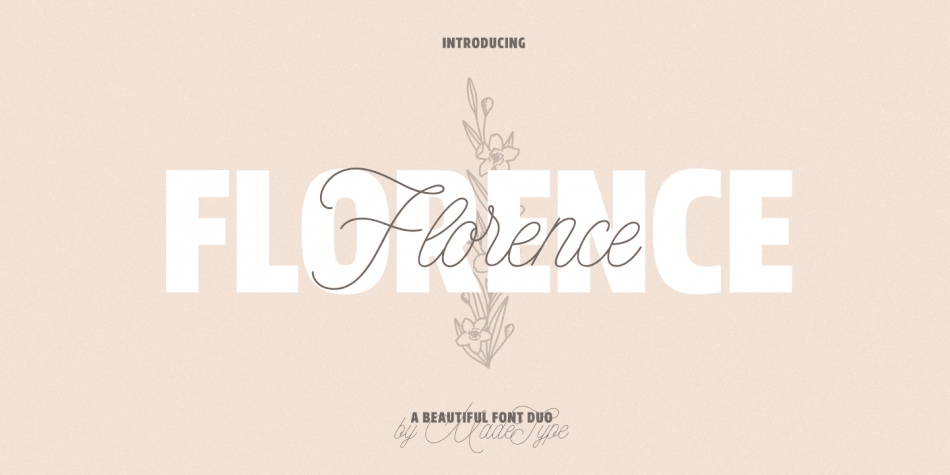
MADE Florence Font
MADE Florence Font is perfect for Italian Renaissance-inspired branding, Tuscan tourism marketing, luxury Italian fashion campaigns, Florentine art gallery signage, high-end Italian restaurant communications, cultural heritage displays, sophisticated Italian lifestyle promotions, and elegant Renaissance-themed events.
What makes MADE Florence Font exciting is its Renaissance elegance that embodies the artistic magnificence and cultural sophistication of Florence with Italian heritage authenticity and Renaissance grandeur. The font features refined letterforms with Florentine proportions and artistic character that evoke Michelangelo sculptures, Medici palaces, and the timeless beauty of Renaissance art and Italian cultural achievement. Its distinctive Renaissance styling and artistic appeal communicate sophistication, culture, and artistic excellence, making every message feel crafted by Renaissance masters and touched by the magnificent beauty of Florentine artistry and Italian cultural refinement.
The MADE Florence Font family includes regular weight with uppercase and lowercase letters, numerals, punctuation marks, and special characters. Premium versions often feature artistic alternates and Renaissance elements that enhance the sophisticated, cultural aesthetic perfect for Italian heritage and luxury applications.
This magnificent Renaissance typeface brings instant authenticity and cultural credibility to any Florence-inspired project. MADE Florence Font Free Download delivers exceptional results for Italian luxury brands and cultural organizations seeking to communicate Renaissance elegance, artistic heritage, and Florentine sophistication to art enthusiasts and Italian culture appreciators.
The artistic character of MADE Florence Font makes it particularly valuable for Italian luxury fashion houses, Tuscan tourism operators, and Renaissance cultural institutions. Its excellent readability ensures cultural messaging and artistic communications remain clear while maintaining the distinctive Florentine aesthetic that appeals to audiences seeking authentic Italian Renaissance experiences and cultural sophistication.
Italian heritage marketers appreciate how MADE Florence Font effortlessly conveys Renaissance authenticity and artistic grandeur. The font's refined proportions and cultural details create prestigious brand materials that establish connections with audiences who value Italian Renaissance culture, artistic heritage, and the magnificent beauty of Florentine artistry and Italian cultural achievement.
The versatile magnificence of this typeface extends to Italian art education, Renaissance tourism, and luxury Italian craftsmanship where Florentine authenticity enhances cultural credibility and artistic appeal. MADE Florence Font Free Download provides creative professionals with an essential tool for developing memorable, culture-driven designs that resonate with audiences who embrace Italian Renaissance heritage, artistic excellence, and the refined magnificence of Florentine cultural sophistication in their artistic and cultural experiences.